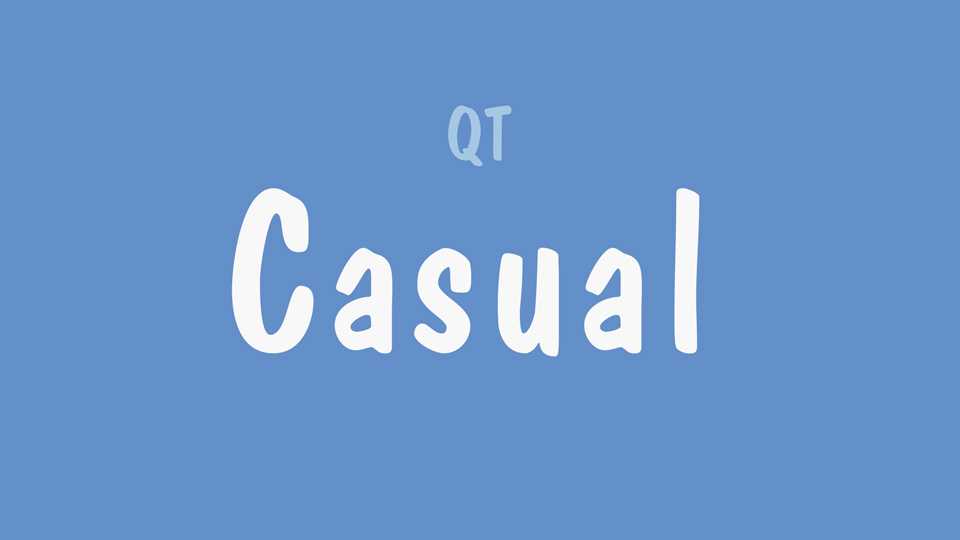
Casual Handwritten Font › Fontesk – Download Grátis
Download Casual font, a simple and natural handwritten script to add a personal touch to any design. Casual font perfectly fits for quotes, notes, social media, cards, kids goods and more.